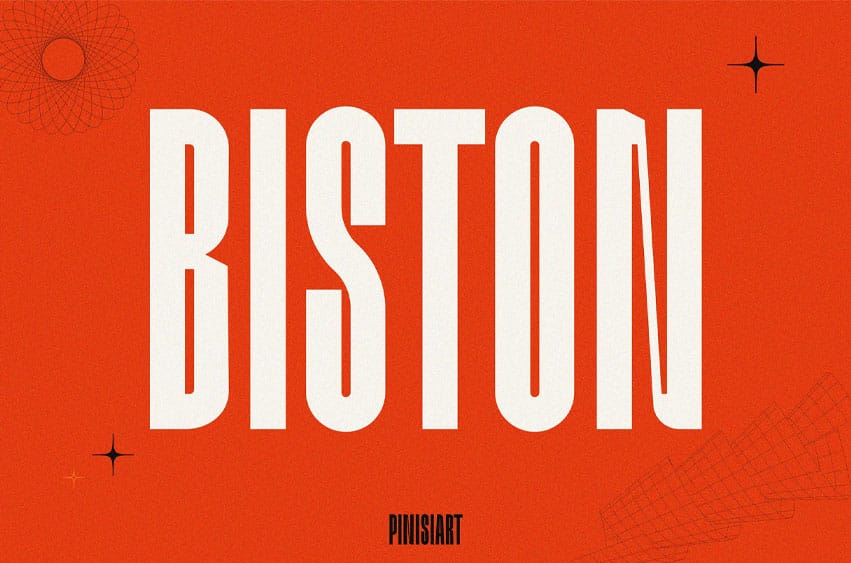
Biston Font is a condensed sci-fi display with bold proportions and an experimental edge. BISTON delivers futuristic headlines with a retro touch. Its stretched vertical stance and sharp cuts make it ideal for techno posters, cyberpunk branding, album covers, or anything that demands maximum visual energy with minimal horizontal space.
Futuristic tall display with sci-fi energy
Great for event posters, tech themes, music visuals, and digital art
All-caps style with full punctuation, numerals
Built for massive impact in limited space
Make your titles louder, bolder, and unmistakably forward-looking with BISTON.